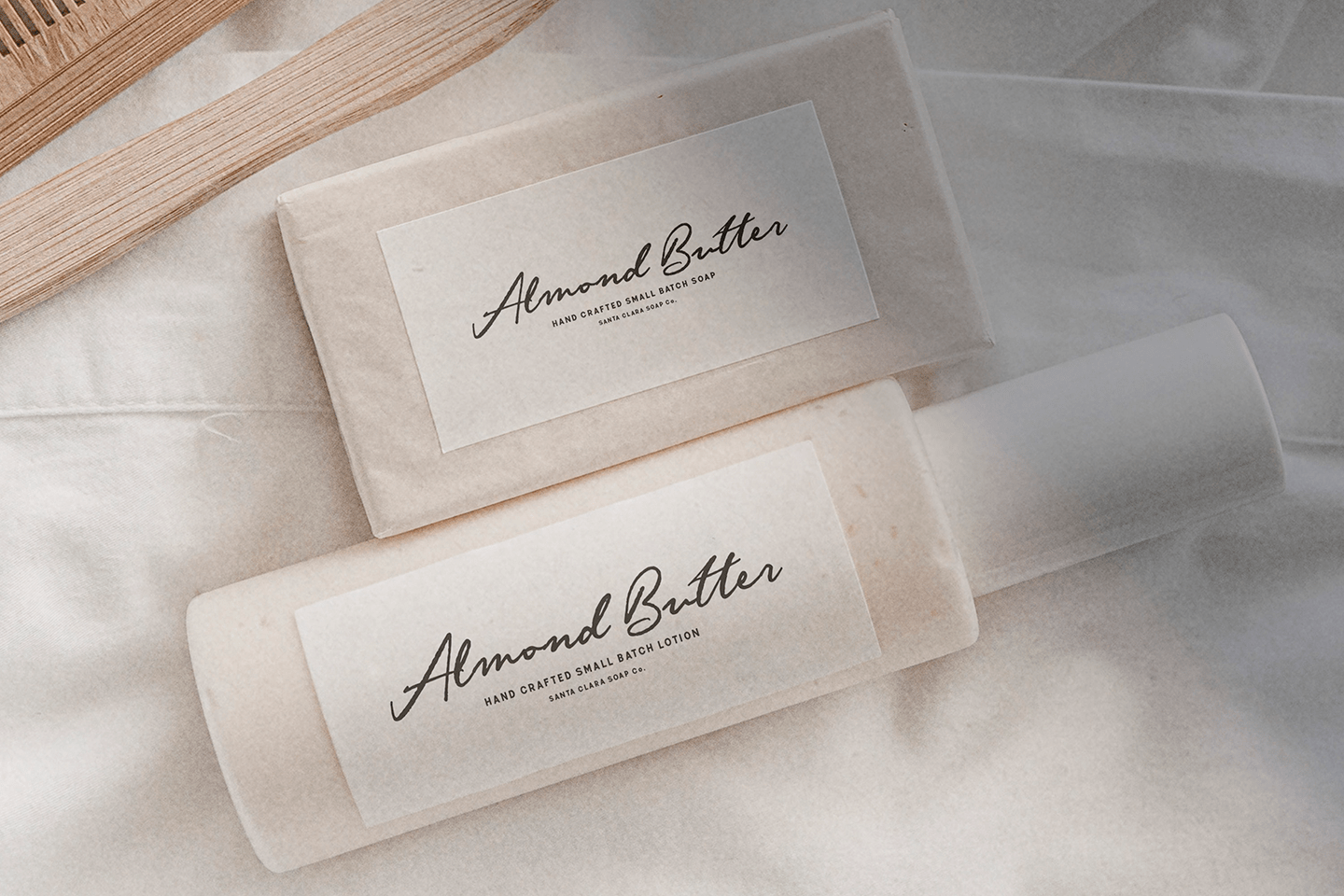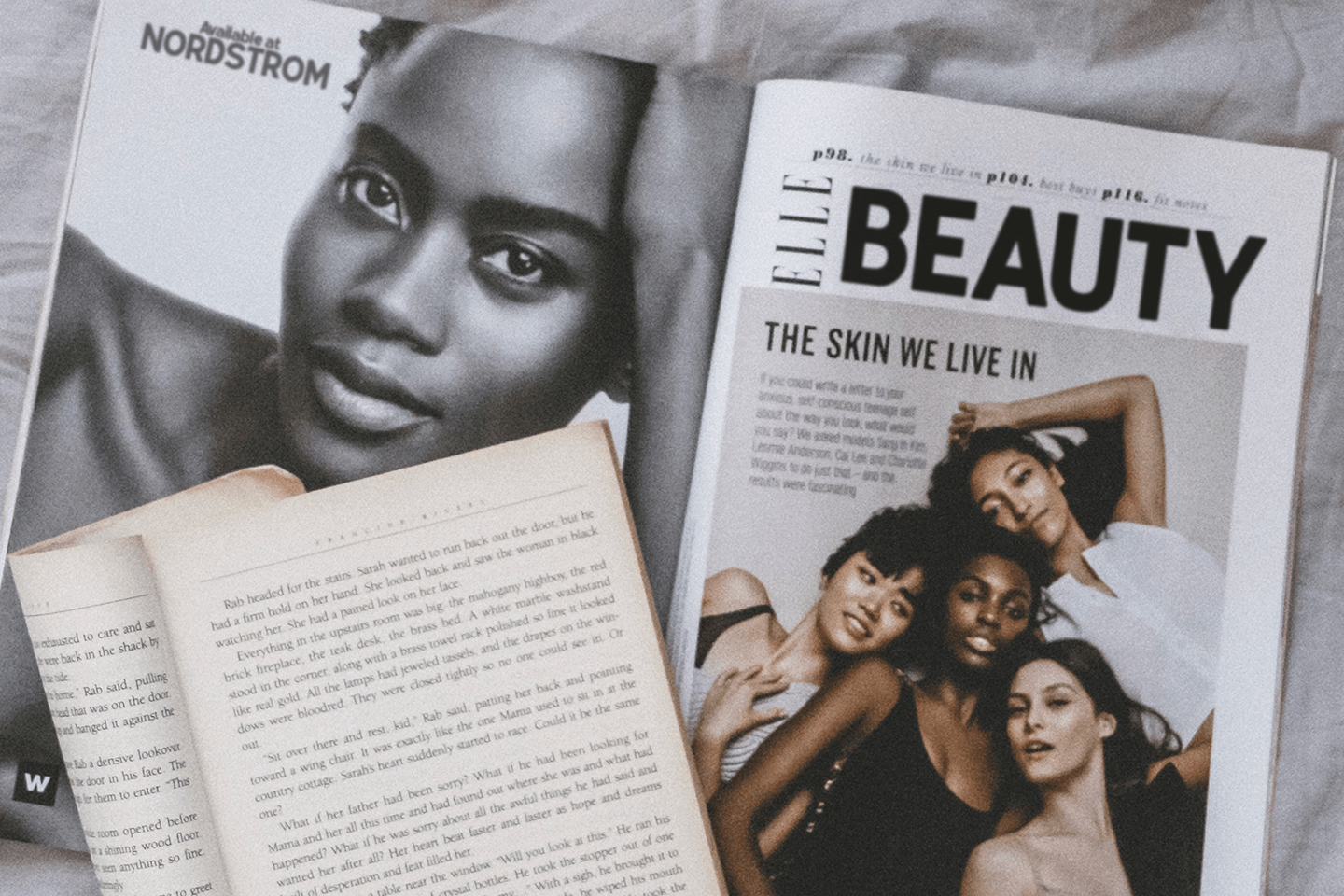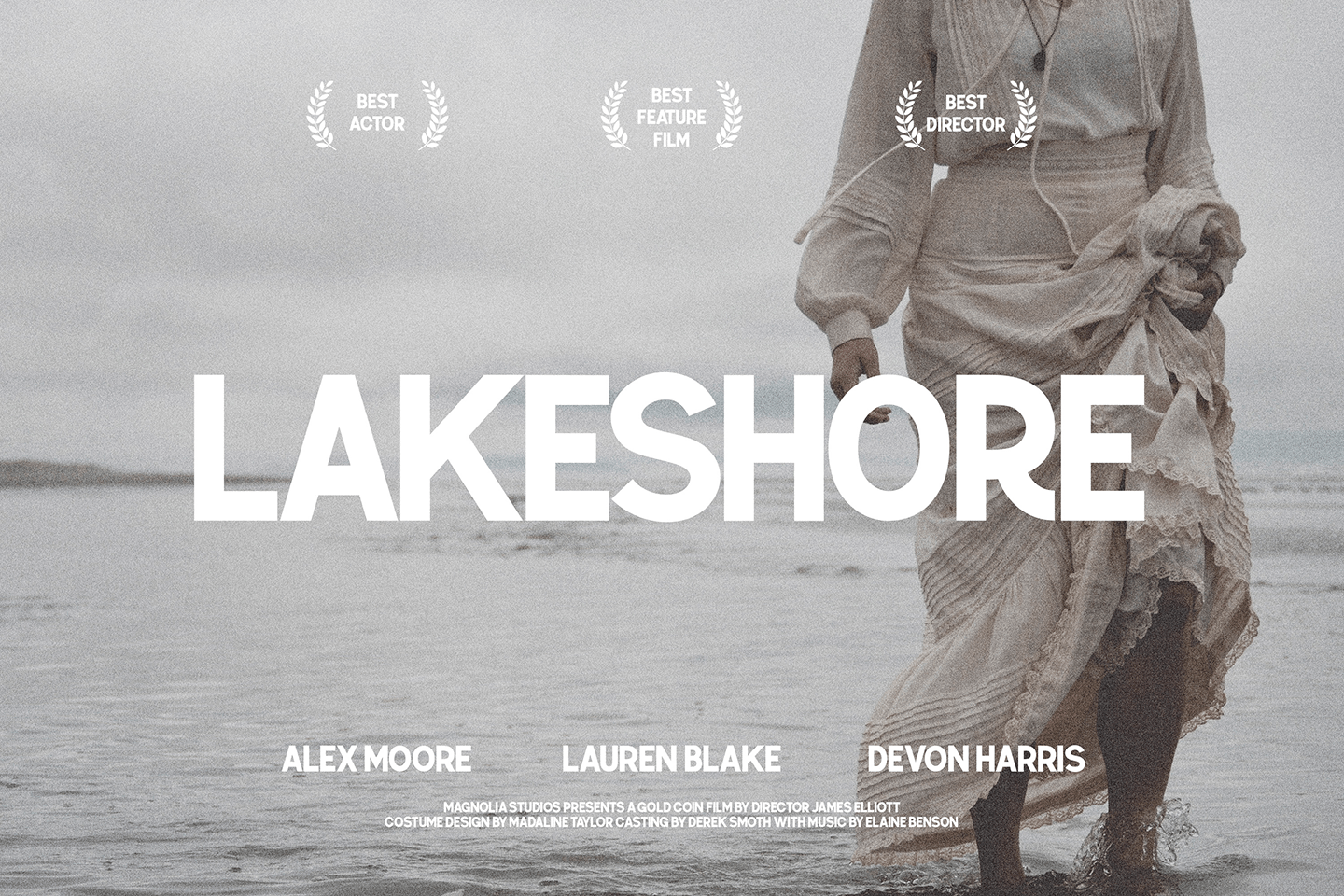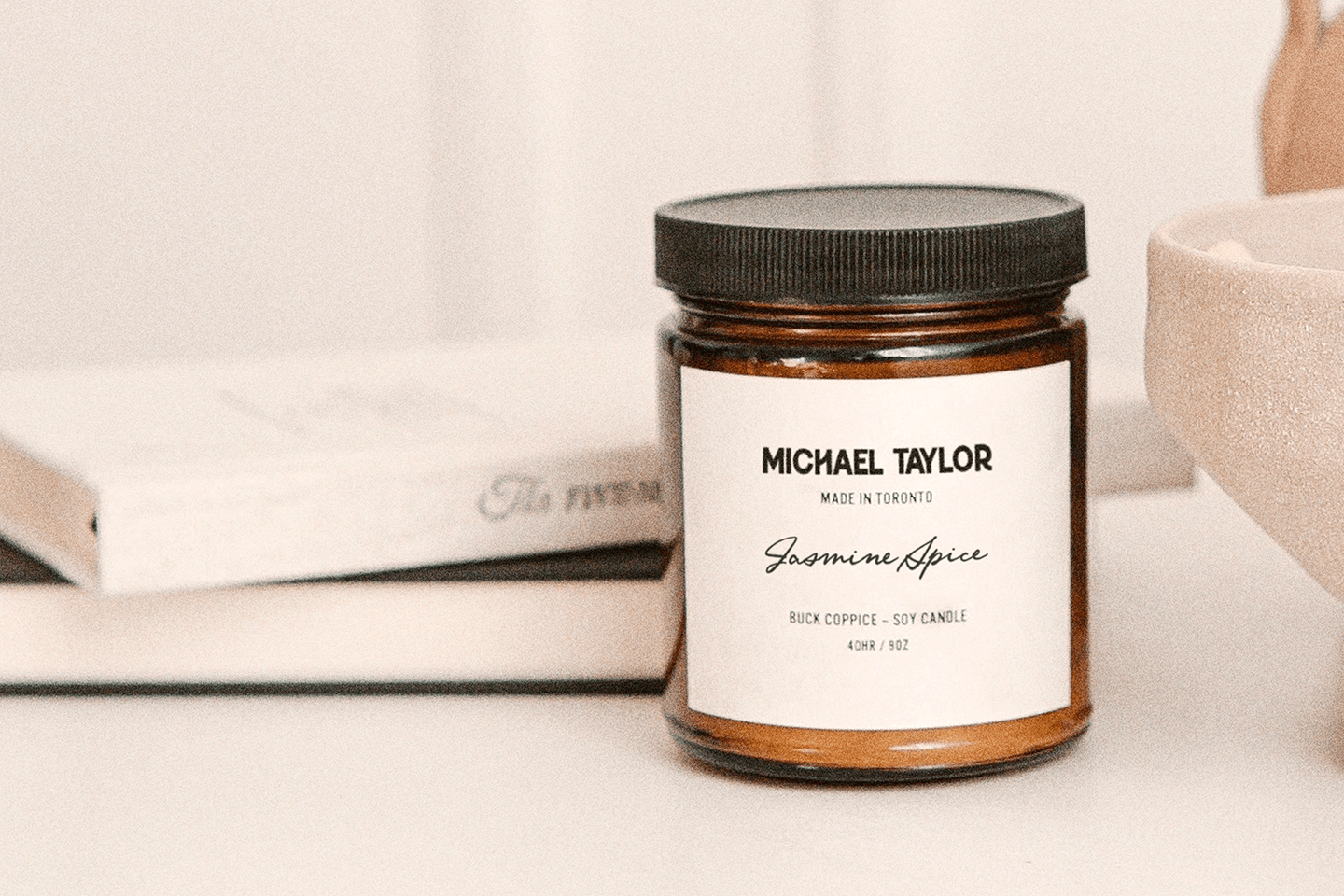
About The Hotel Grande
Say hello to The Hotel Grande! This nostalgic type collection offers a series of clean, headline fonts, paired with a delicate, hand-lettered script. This versatile combo boasts a classic feel, but also includes 70\’s-inspired alternates that quickly lend…